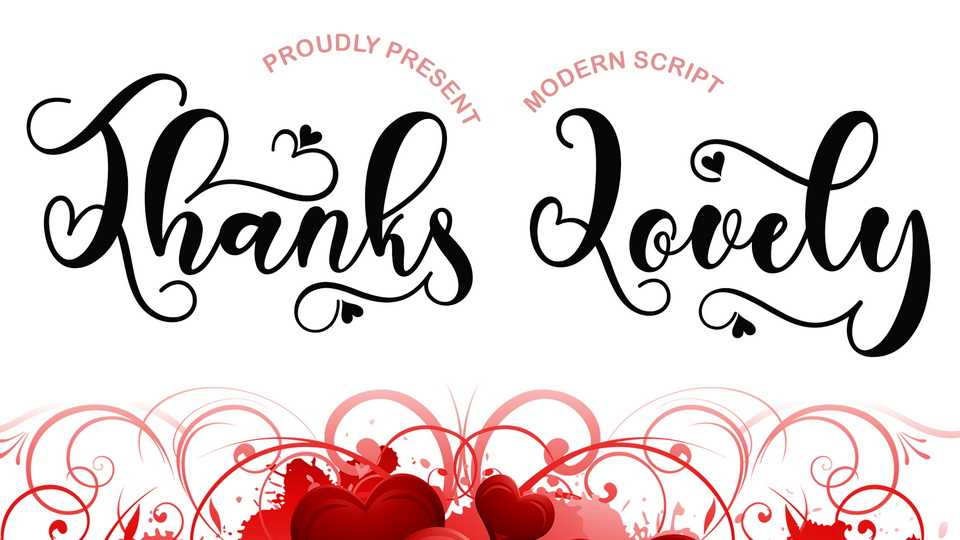
Download Thanks Lovely font, a beautiful and lovely calligraphy Typeface with a heart decoration. The decoration in Thanks Lovely font is very easy to use, because it has been specially designed.